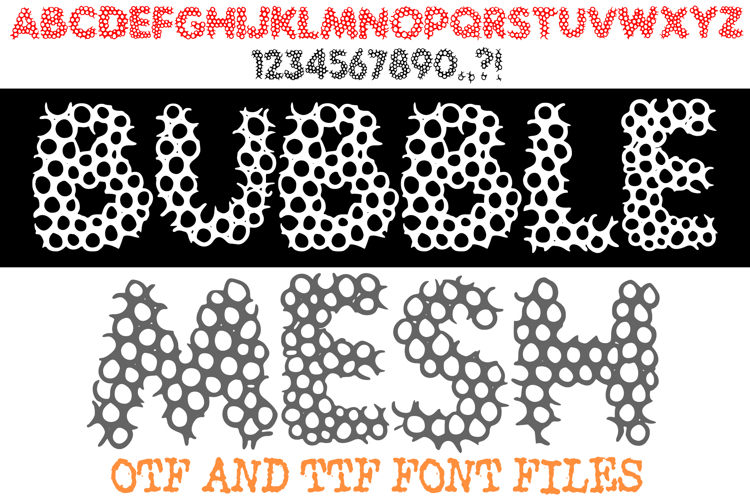
Bubble Mesh Alphabet Lettering ABC Text Font Hand Drawn OTF
Bubble Mesh Font is a unique hand-drawn display typeface built from clustered circular “bubble” shapes, giving every letter and number a bold, textured, and eye-catching look. This organic bubble-mesh style is perfect for designers who want something playful, modern, and visually striking.
Use it for logos, posters, t-shirt designs, children’s projects, product labels, stickers, digital downloads, Cricut crafting, and more. Bubble Mesh Font includes A–Z uppercase letters, numbers 0–9, and punctuation — all crafted with a fun, porous, mesh-bubble aesthetic that stands out instantly in any design.
Great for makers, illustrators, teachers, and anyone who needs a creative textured font that feels handmade and original.